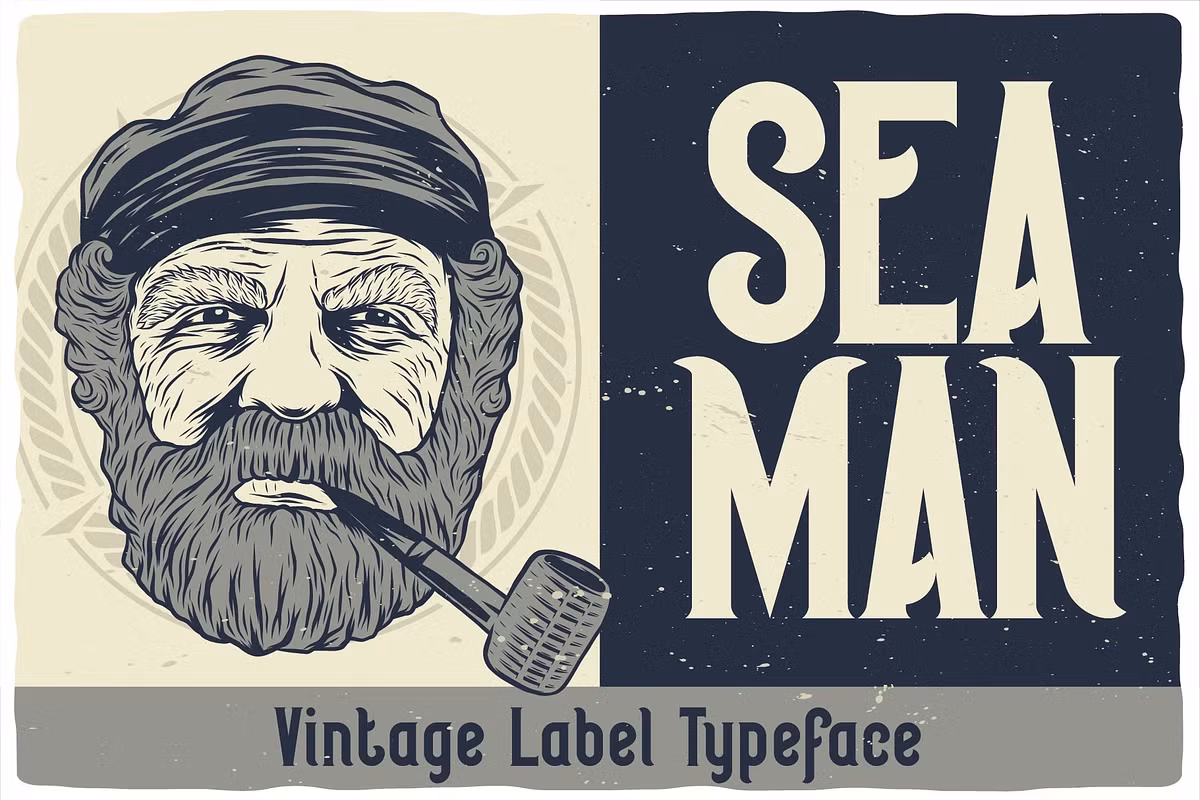
Seaman Label Font Free Download
Seaman Label Font Free Download is a bold, vintage-inspired typeface that brings a rugged nautical feel to your designs. Perfect for logos, packaging, apparel, and signage, this font captures the essence of classic maritime aesthetics with its strong lines and retro character. Whether you're designing for a seaside brand, barbershop, or craft product, Seaman Label delivers a timeless, handcrafted look.
Its blocky structure and subtle textured edges give it a stamped, old-school vibe that works great on both digital and printed materials. Seaman Label Font Free Download is a favorite among designers looking to evoke nostalgia while maintaining a clean, professional feel.